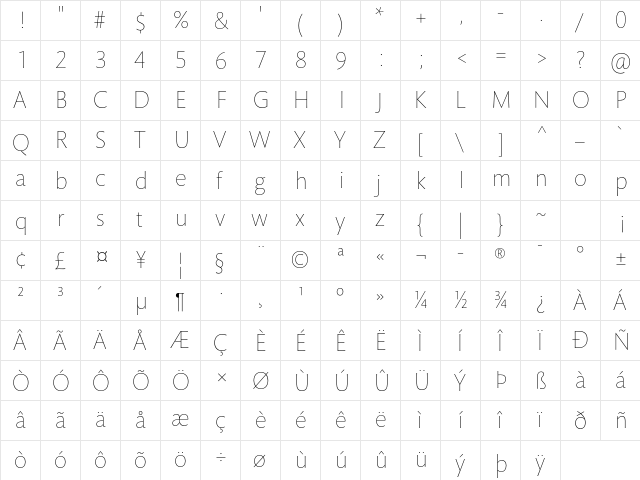
Mundo Sans Std Extra Light
Design Context for Mundo Sans Std Typeface
Mundo Sans Std is a composed and adaptable typeface that performs quietly and consistently across a wide range of design contexts. Its slender proportions lend an understated elegance to any composition.